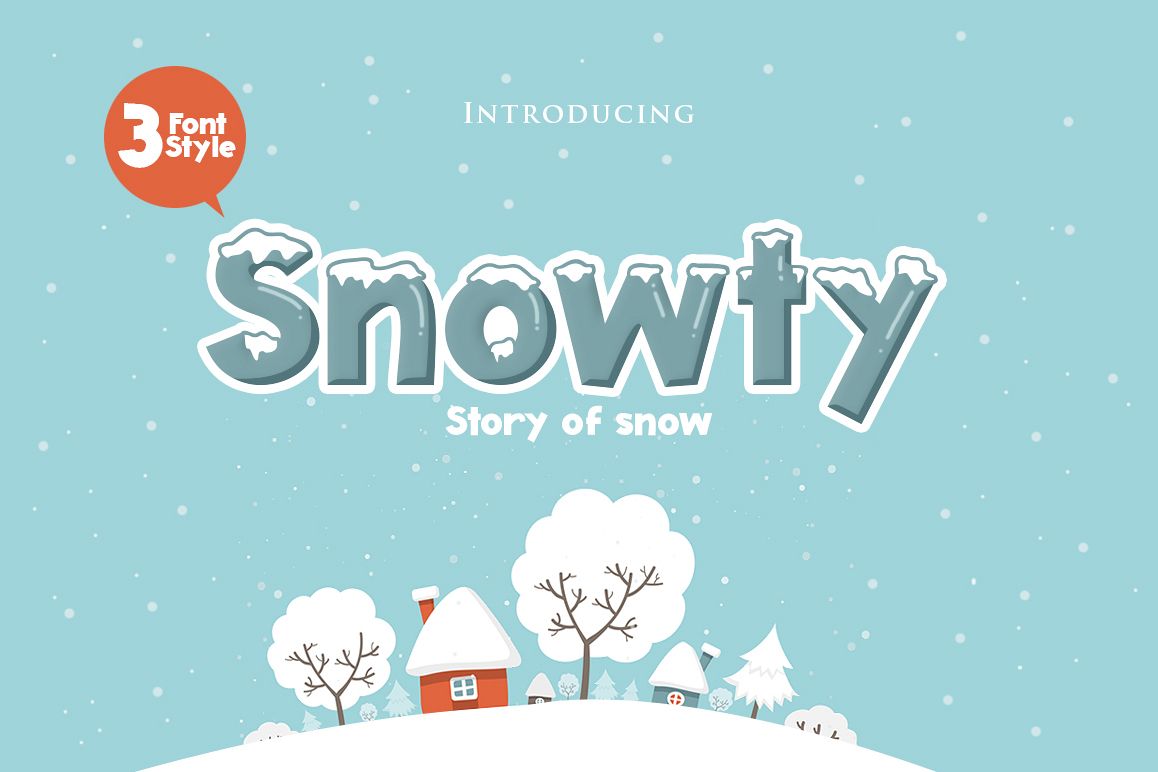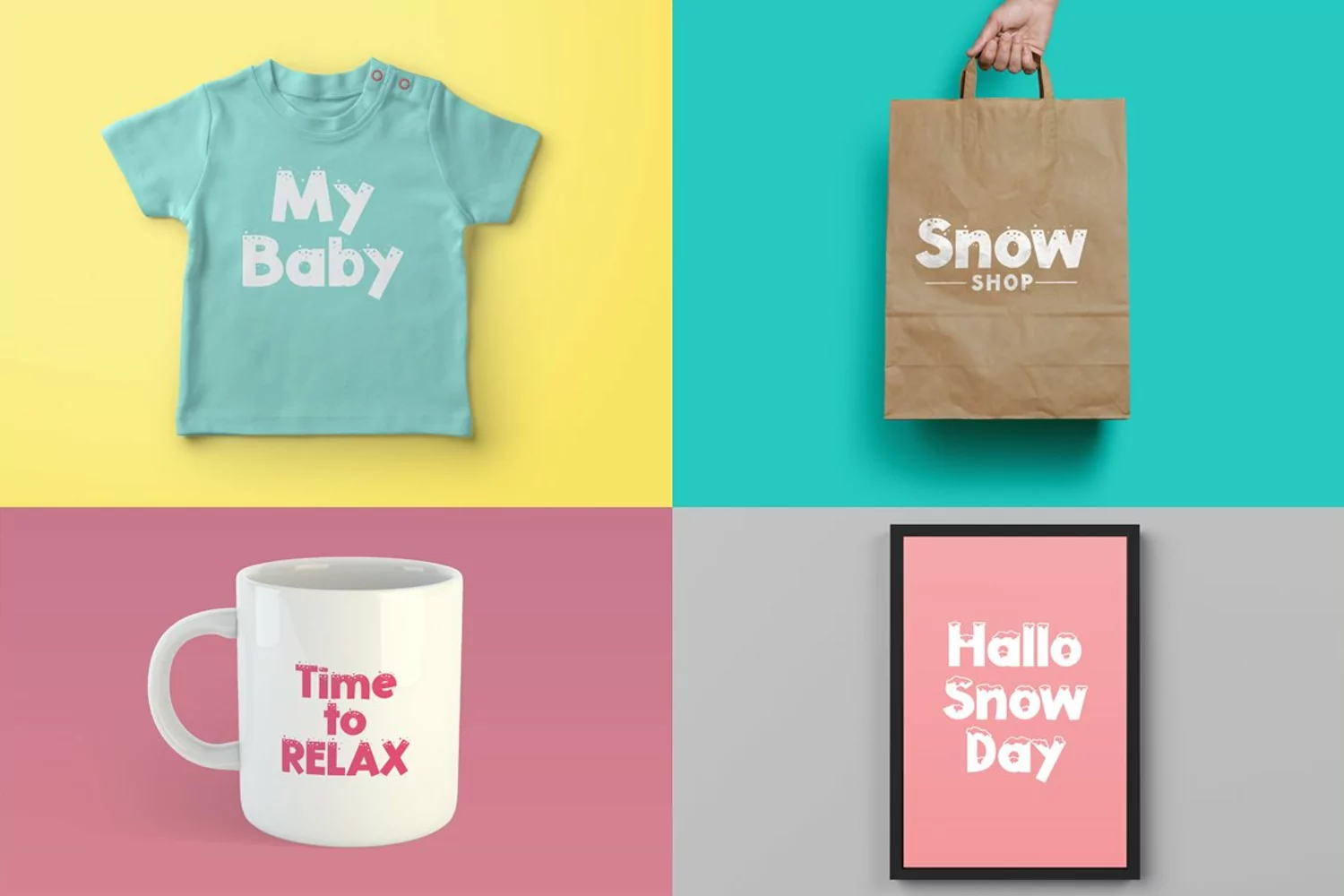
Snowty 3 Font font with snow & winter theme for your fun project. Snowty Display font has 3 different styles, regular, clean and snow. Snowty Display font suitable for logo, branding, greeting card, poster and any design that you create.